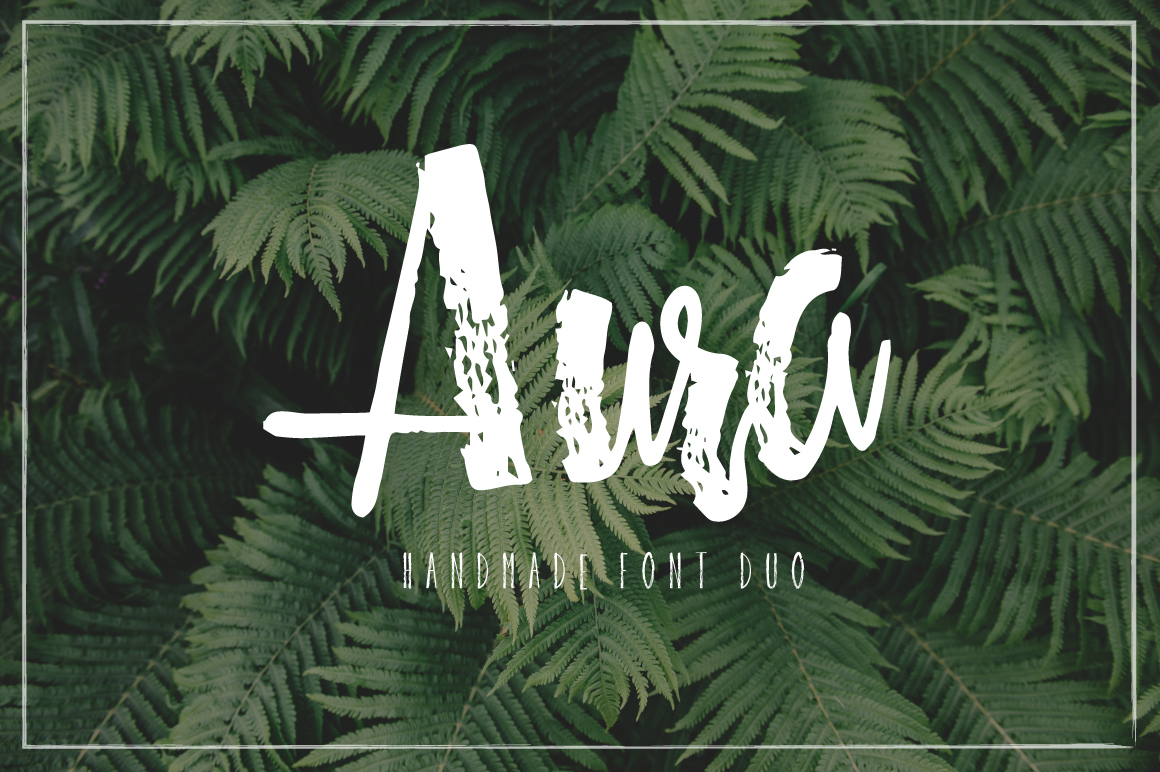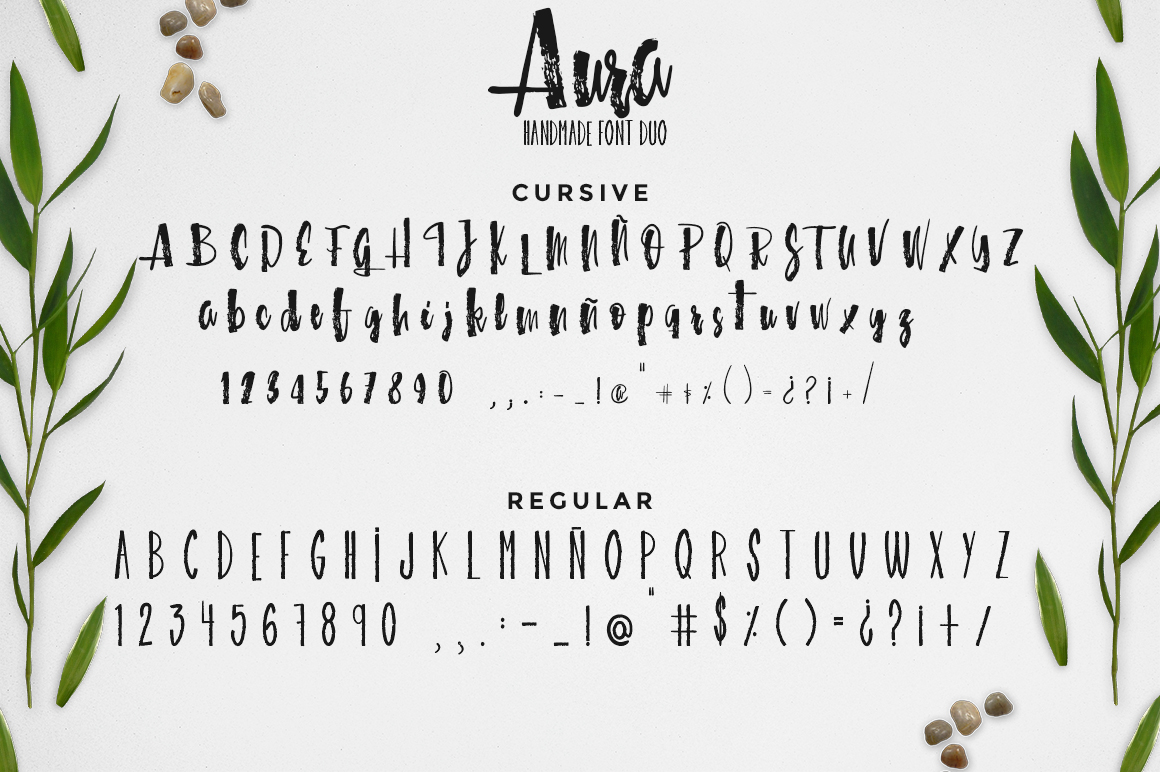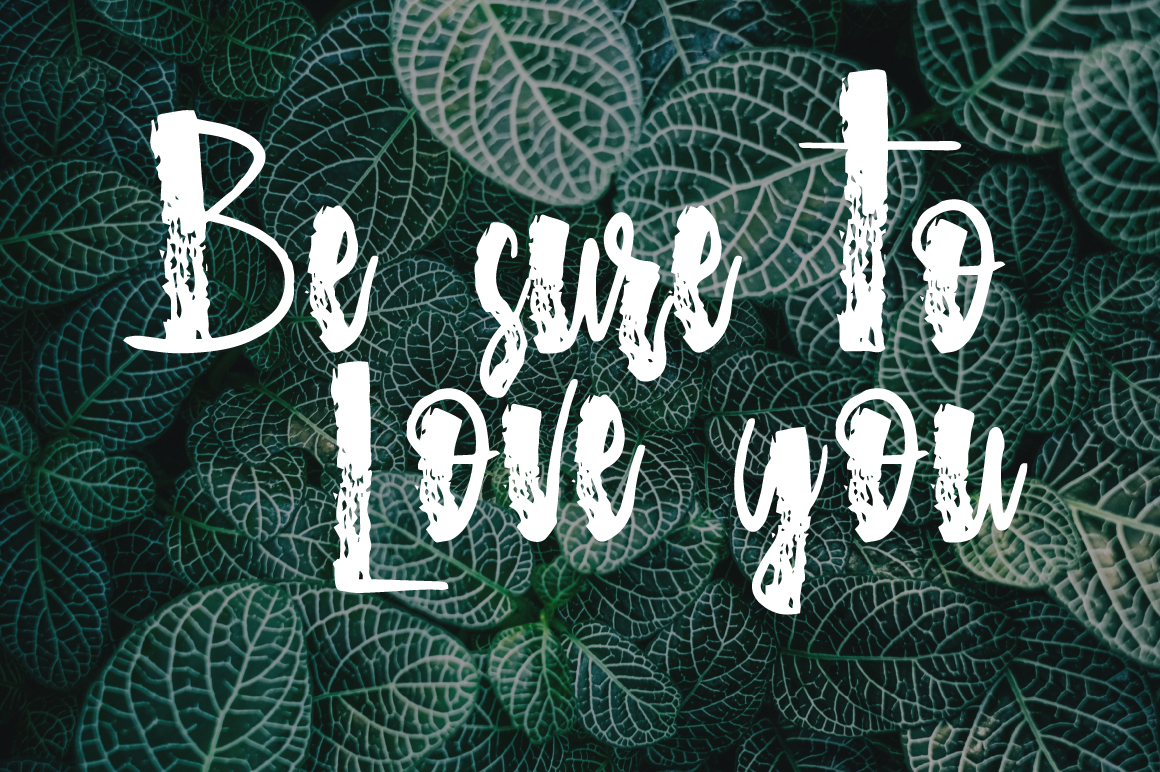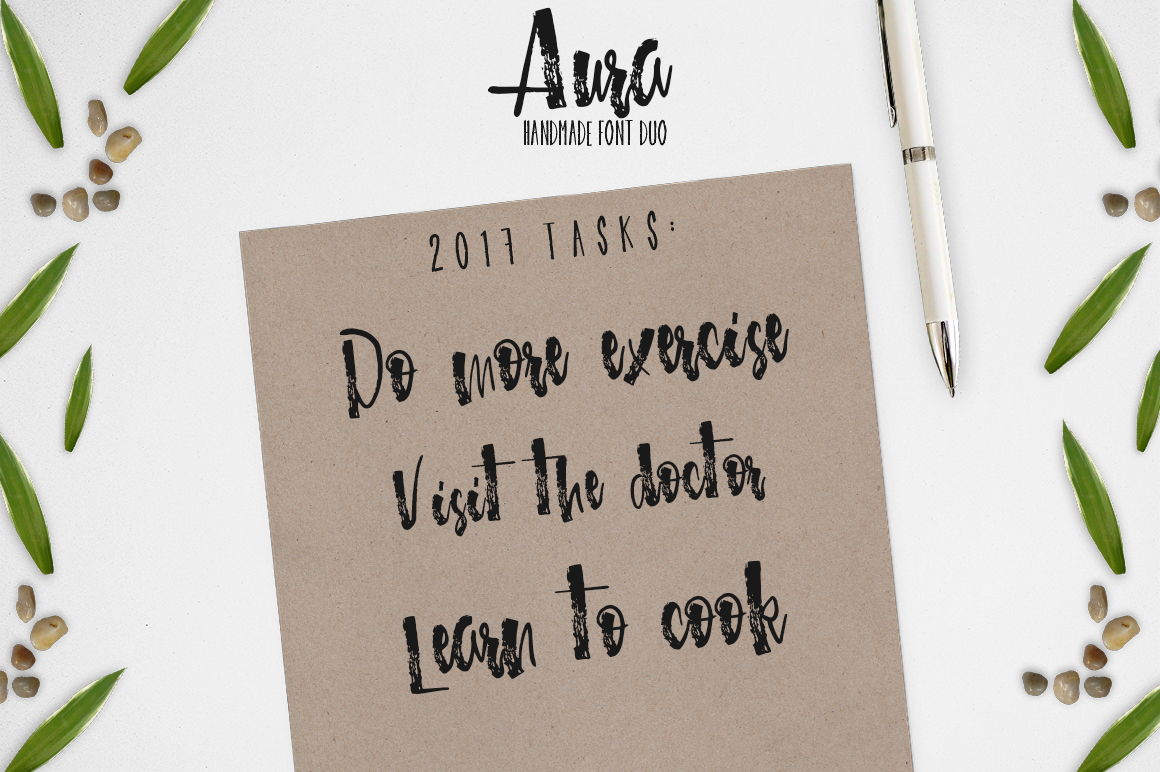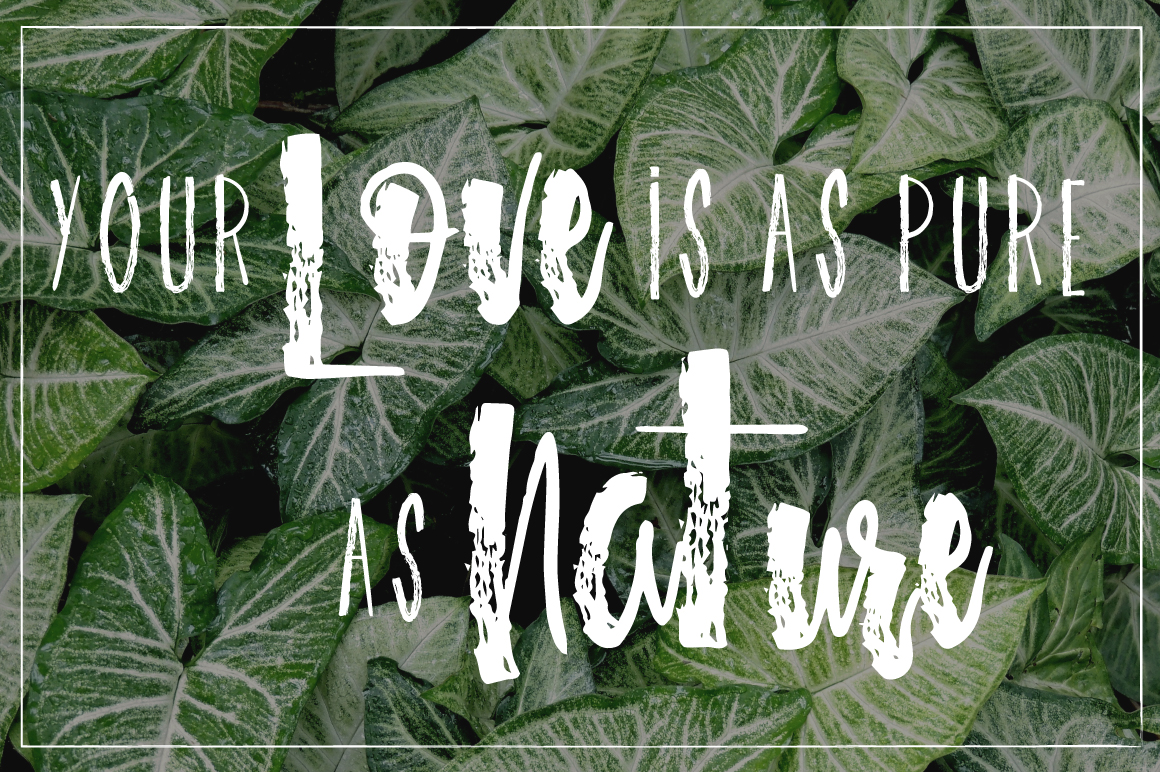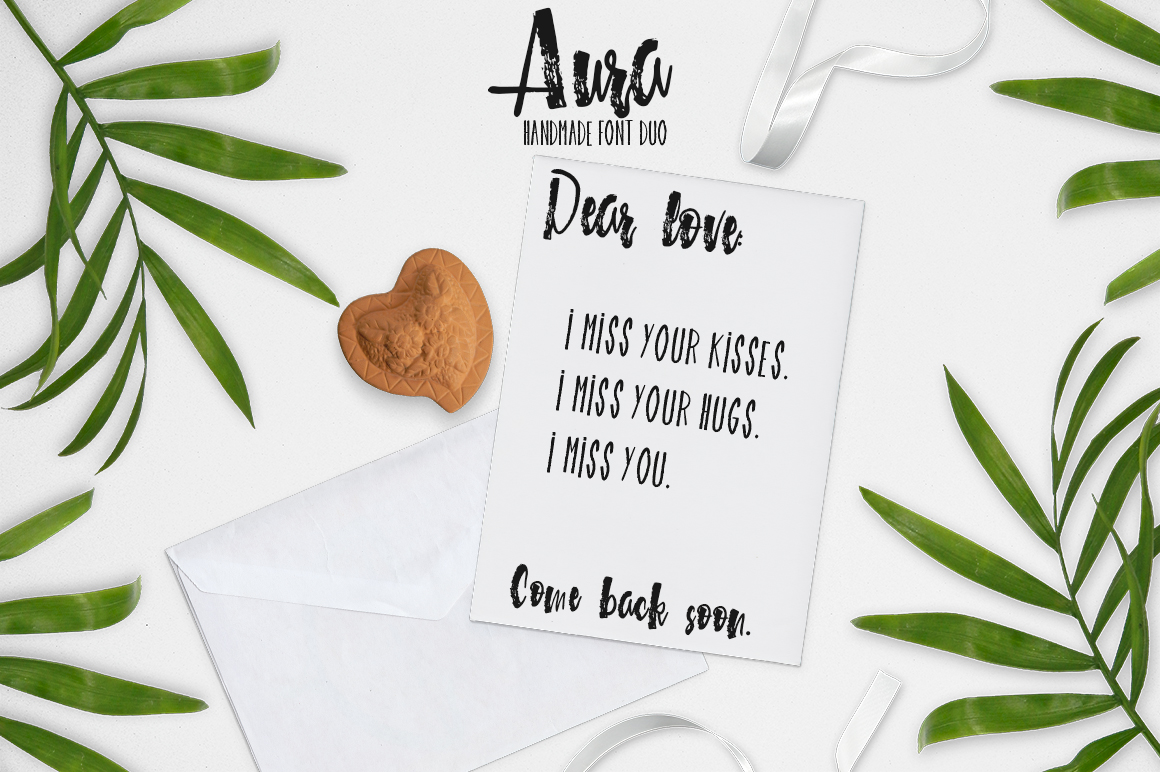
HomeScript FontsAura Font Script Fonts Aura Font FacebookXPinterestWhatsApp Aura Font Poster 2 Aura Font Poster 3 Aura Font Poster 4 Aura Font Poster 5 Aura Font Poster 6 About Aura Font Aura is a handmade font duo. The fonts were created by hand with a marker pen and have a very crafty feeling. DOWNLOAD ON CREATIVE FABRICAThis font is sold and delivered by Creative Fabrica. Font Canyon may earn a commission if you buy through this link. People also explored Estephany Script Font Maroon Bella Canvas 3001 T Shirt Mockup Good Doggie Lf Font Bubbles Pable Font Glee Club Crowd Funded Best Friend Font Zettamount Font 300 0 TagsAura Font Previous articleWanderlust FontNext articleFairies Font LEAVE A REPLY Cancel reply Comment: Please enter your comment! Name:* Please enter your name here Email:* You have entered an incorrect email address! Please enter your email address here Website: Save my name, email, and website in this browser for the next time I comment. Personal Use Free Bulky Personal Use Free Read more about this font Sea Gardens Personal Use Free Read more about this font Jabirah Personal Use Free Read more about this font Bridgetown Font Personal Use Free Read more about this font BLOG 5 Fonts That Will Dominate Design Trends in 2026 5 Fonts for 2026 That Will Dominate Design Trends Typography plays a critical role in visual communication, and as we look ahead to 2026, itβs... Exploring Font Trends Best Fonts for T-Shirt Design β Top 2025 Picks Top 10 Handwritten Fonts That Elevate Your Designs